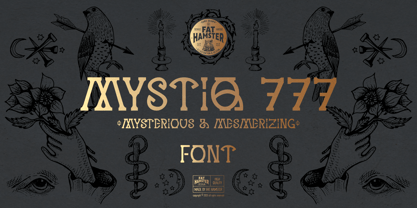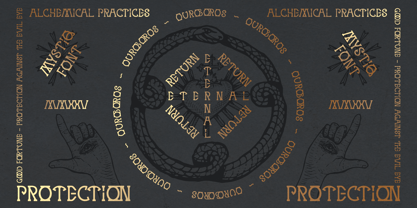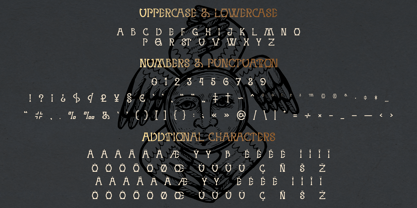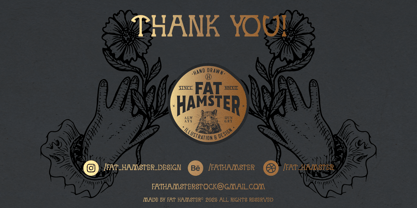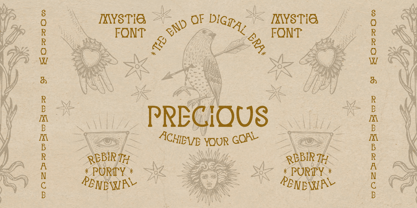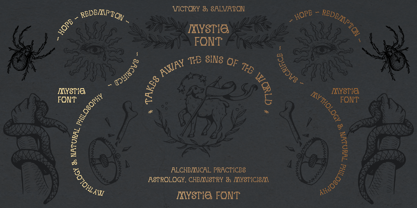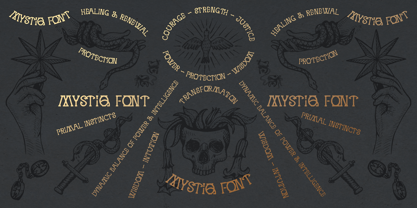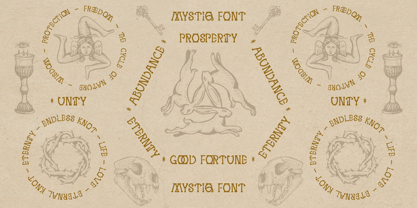
Mystiq 777
The Mystiq 777 Font Family was designed by Alesia Kutsian, Aliaksei Hvozdzeu and published by Fat Hamster. Mystiq 777 contains 1 styles. More about this family
The "Mystiq 777" display font embodies a captivating fusion of mystic artistry and medieval craftsmanship, crafted to evoke a profound sense of mystery and esoteric allure. This set of mystic font and hand-drawn vector illustrations draws inspiration from ancient alchemical symbols, mystical sigils, and medieval engravings, creating a visually rich tapestry of spiritual symbolism.
The "Mystiq 777" font features intricate characters with ornate flourishes reminiscent of medieval manuscripts and alchemical texts. Its letterforms incorporate subtle glyphic details that evoke the secrets of alchemy, astrology, and mystical traditions. Each glyph is designed to appear as if carved by a medieval scribe, blending historical authenticity with a touch of magical elegance. Complementing the font are a collection of hand-drawn vector illustrations in the style of medieval engravings: mystical and alchemical symbols. These vector illustrations are ideal for creating mystical titles, mysterious logo and packaging design, esoteric posters and invitations, branding projects rooted in spirituality, mythology or alchemical themes.
Overall, "Mystiq 777" font is perfect for projects seeking to communicate a sense of spiritual depth, ancient wisdom, and arcane knowledge—be it in the realms of mysticism, alchemy, astrology, or medieval esoteric traditions. The design invites viewers into a world of magical symbolism and spiritual exploration, bridging the mystical past with contemporary artistic expression.